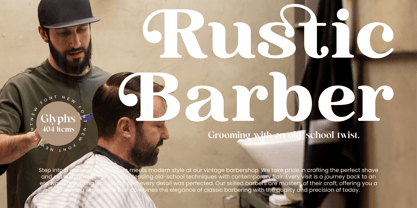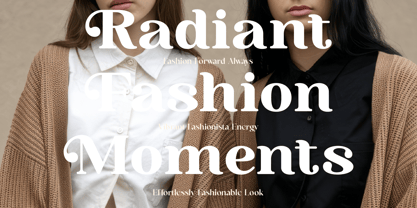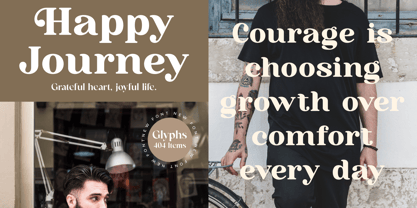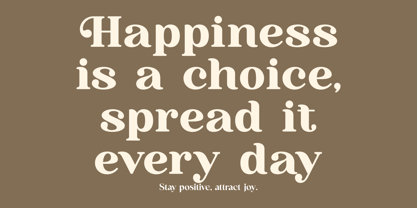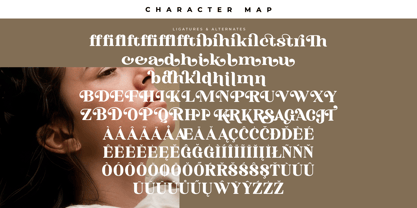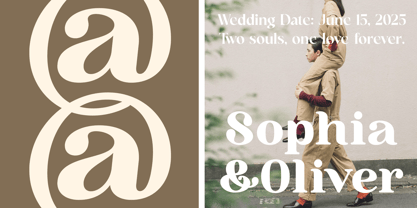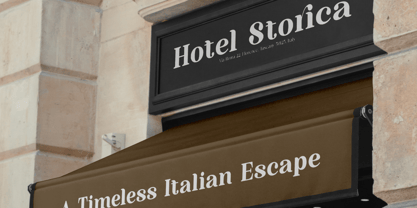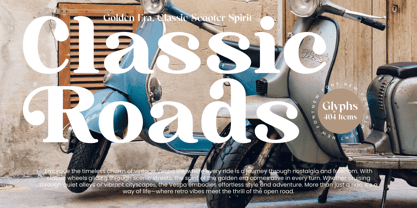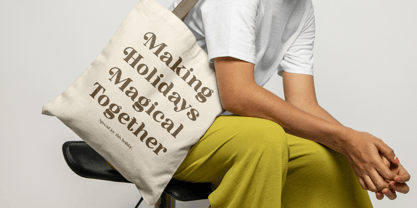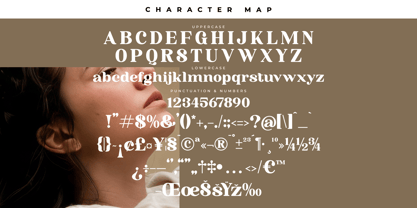
Madrid & Birch
The Madrid & Birch Font Family was designed by Heru Utama Putra and published by Timelesstype Studio. Madrid & Birch contains 2 styles and family package options.
Madrid & Birch - Modern Alternate Serif , from Timelesstype, Suitable for any projects such as: logos, branding projects, homeware designs, product packaging, mugs, quotes, posters, shopping bags, t-shirts, book covers, name card, invitation cards, greeting cards, label, photography, watermark, special events, and all your other luxury and beautiful projects that need a Luxury Serif taste.